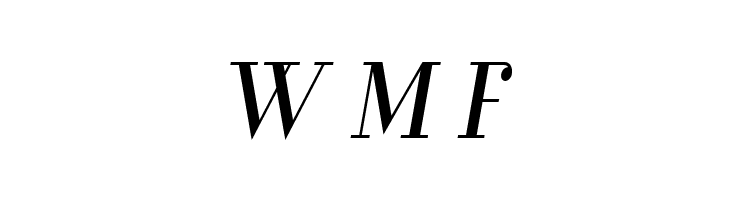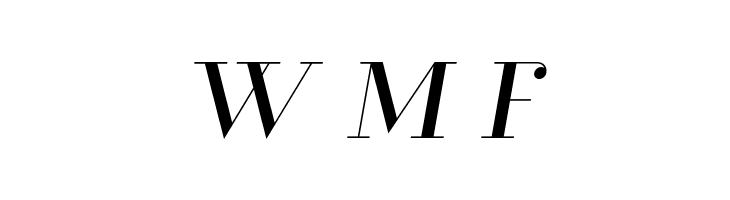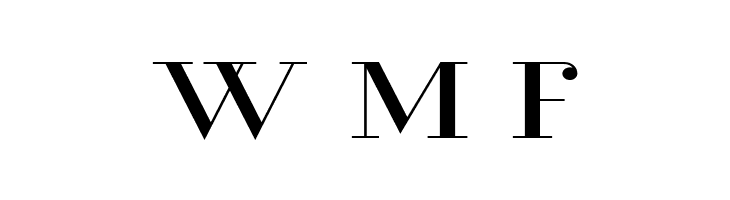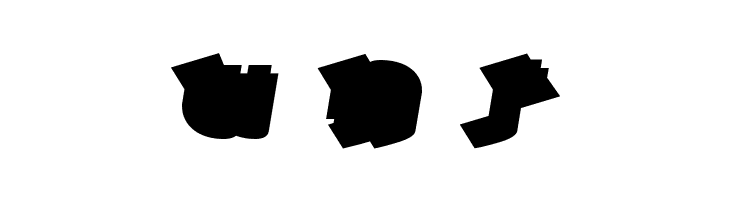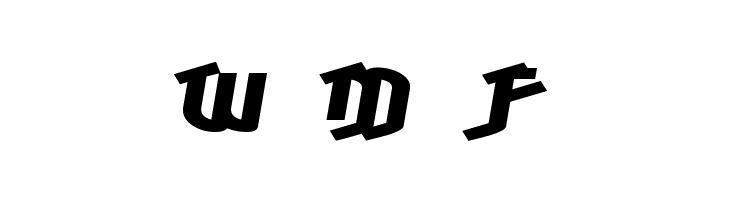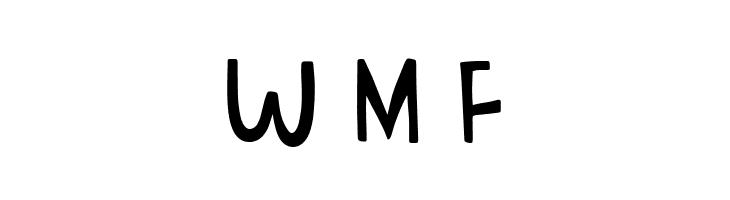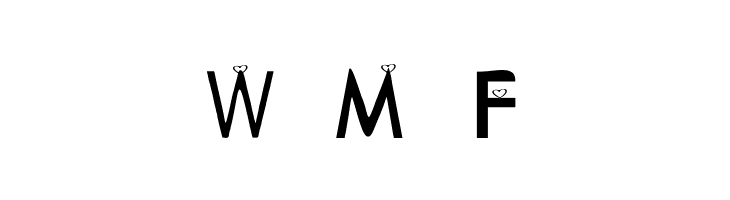
An elegant, intricate script font with a mystical and artistic appearance.
A fluid, cursive script font with elegant, flowing strokes.
A bold, geometric font with a three-dimensional, graffiti-inspired style.
A bold, angular font with a dynamic, geometric style.
A traditional blackletter font with ornate, angular letterforms.
A playful, hand-drawn font with a whimsical and informal style.
A playful, decorative font with heart motifs and bold, modern characters.
A bold, condensed, and italic font with high contrast and elegant curves.
An elegant italic font with high contrast and decorative serifs, exuding sophistication.
A sophisticated, high-contrast serif font with extended characters and elegant flourishes.